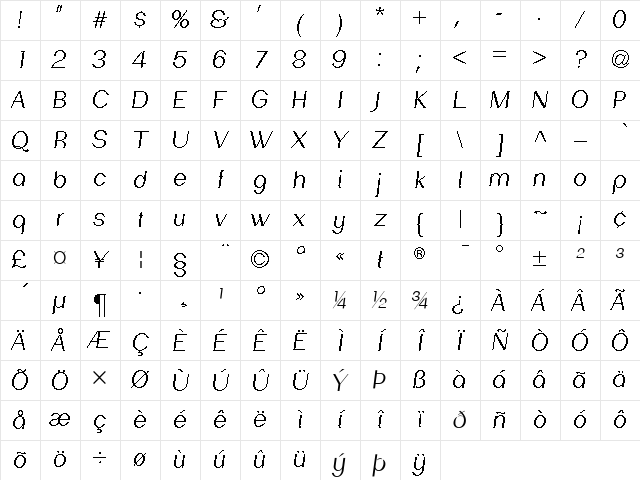
Complete PassionSansPDaf BookItalic glyph index. Displaying only characters natively supported by PassionSansPDaf BookItalic font.
PassionSansPDaf is a composed and adaptable typeface that performs quietly and consistently across a wide range of design contexts. The slanted form adds forward momentum and visual energy.
Pro Tip: Use PassionSansPDaf for emphasis, pull quotes, and subheadings where its slanted energy can add rhythm to the layout.